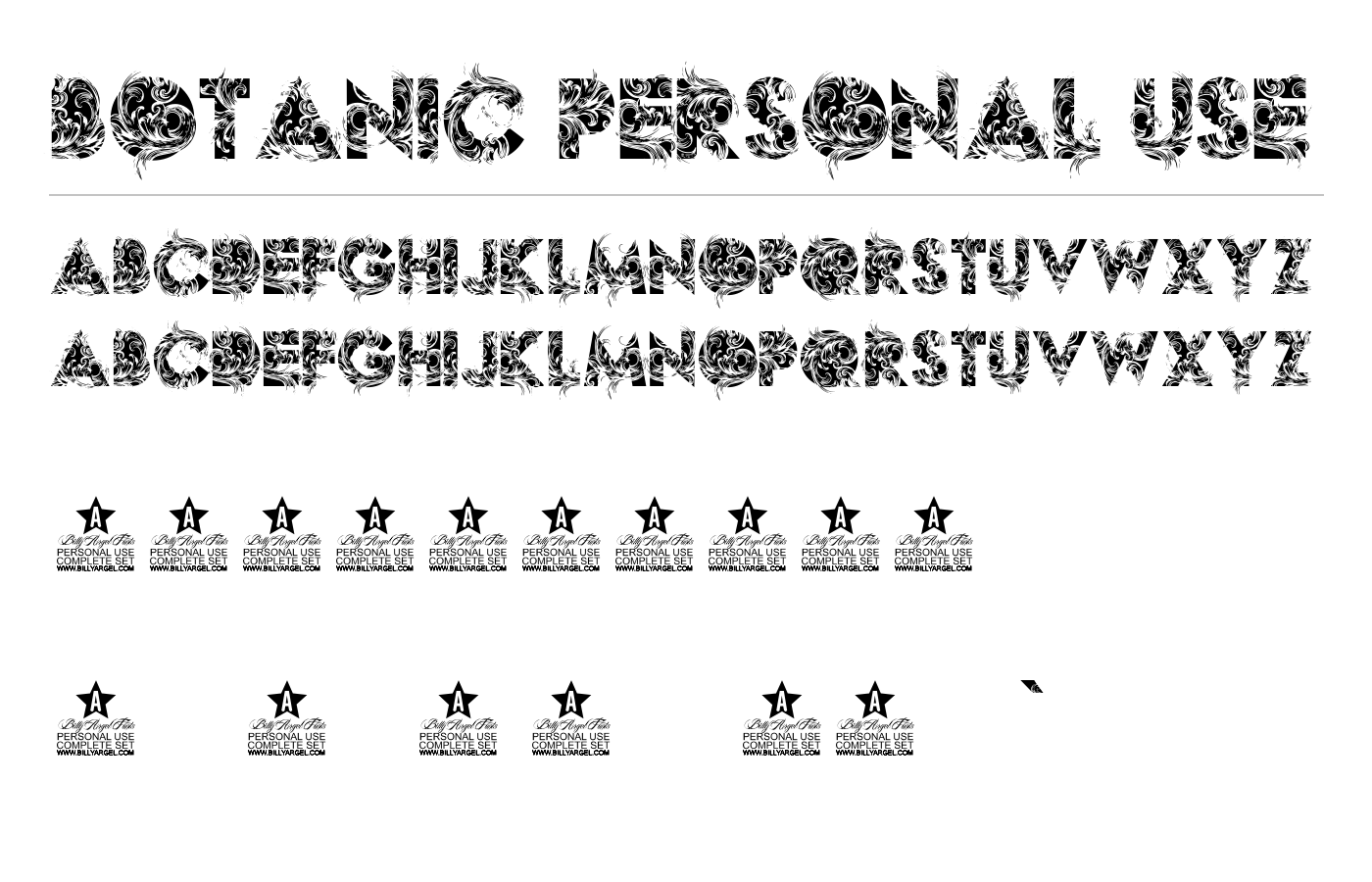
Botanic Personal Use is an ornamental display font characterized by its intricate, botanical-inspired patterns filling bold uppercase letters. This font combines artistic flourishes with strong geometric letterforms, making it ideal for decorative headlines, logos, and designs that need a touch of nature-inspired elegance and creativity. It works best where eye-catching, detailed typography can be appreciated, such as posters, branding for eco-friendly products, or fashion-related projects.
BOTANIC PERSONAL USE Font
About BOTANIC PERSONAL USE Font
| Font family | BOTANIC PERSONAL USE Font |